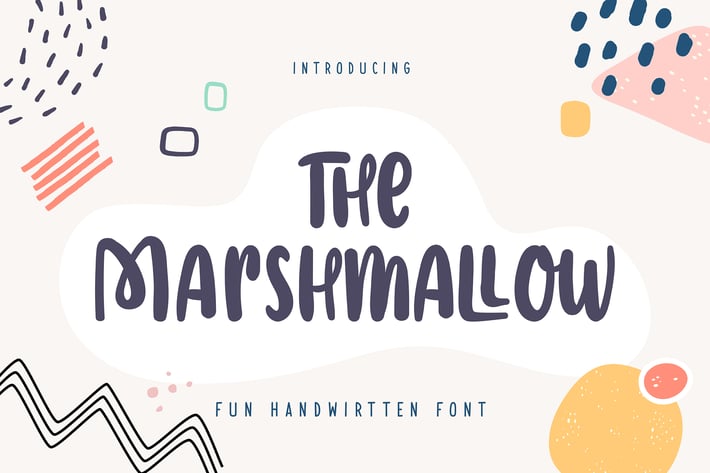
The Marshmallow | Fun Handwritten Font
The Marshmallow | Fun Handwritten Font with a calligraphy style, So beautiful on invitation like greeting cards, branding materials, business cards, quotes, posters, and more!